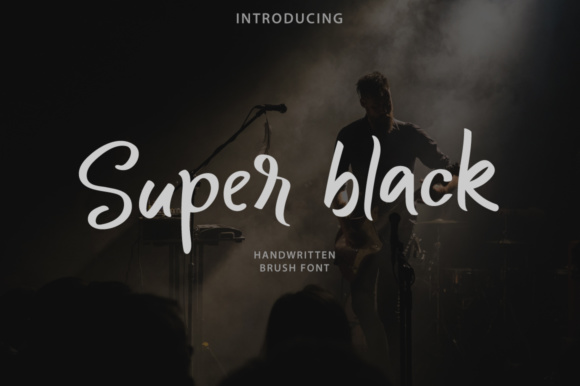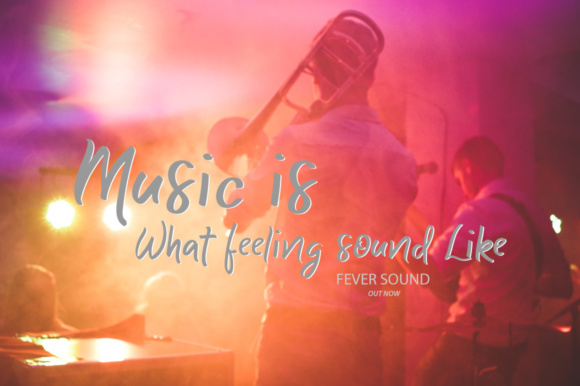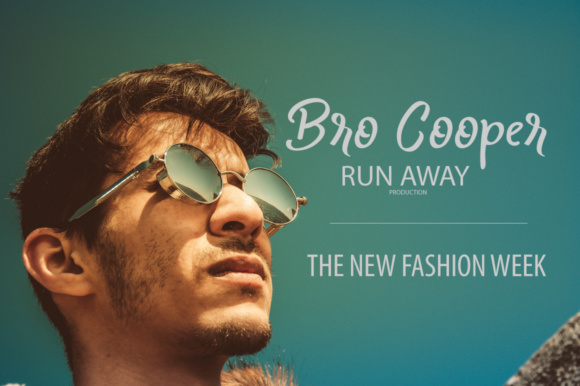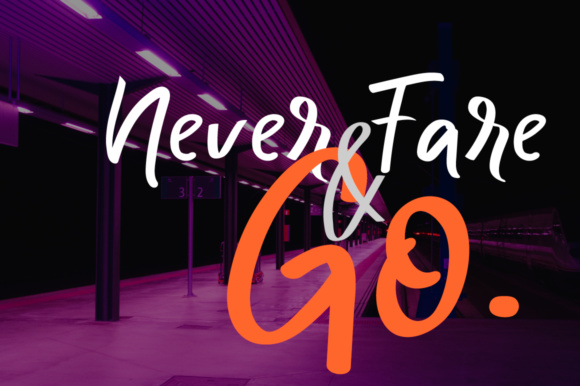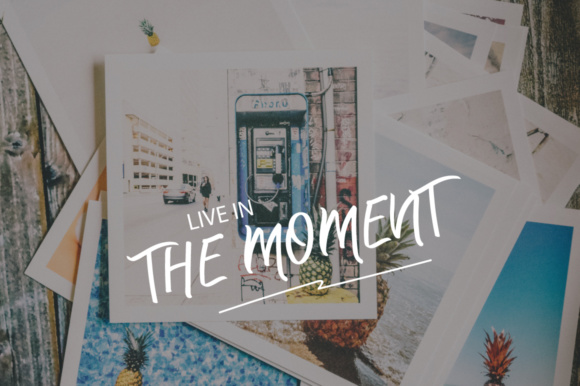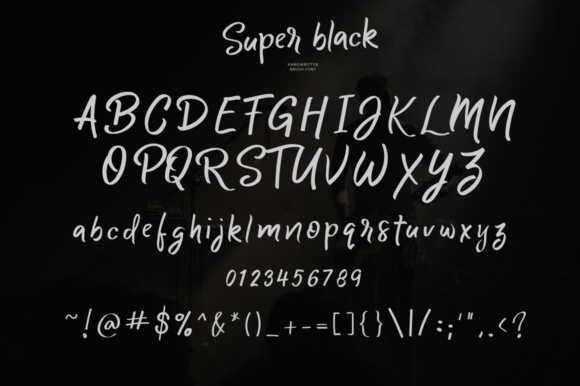
Super Black Font
About Super Black Font
The Super Black is a handwritten brush font. It’s the perfect font to give your design a fun and cute feel, with a hand letter style that makes it look natural. Ideal for your branding, handwritten quotes, logos, headers, posters, apparel, packaging, business cards, etc.